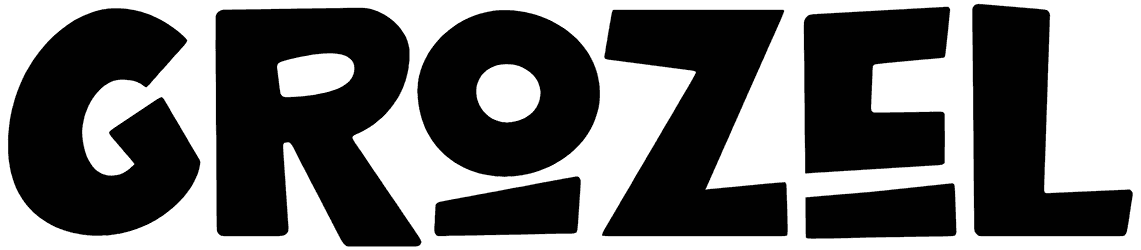
Grozel Font
Playful lettering can provide a whimsical mood for your funny layout; that’s what this cartoon is going to do. The bold and cute characters of Grozel font can capture a lot of attention for your words. It doesn’t have lowercase letters, but with two sets of capitals, you can adorn the title of a kids’ flyer, a toy store sign, or whatnot.